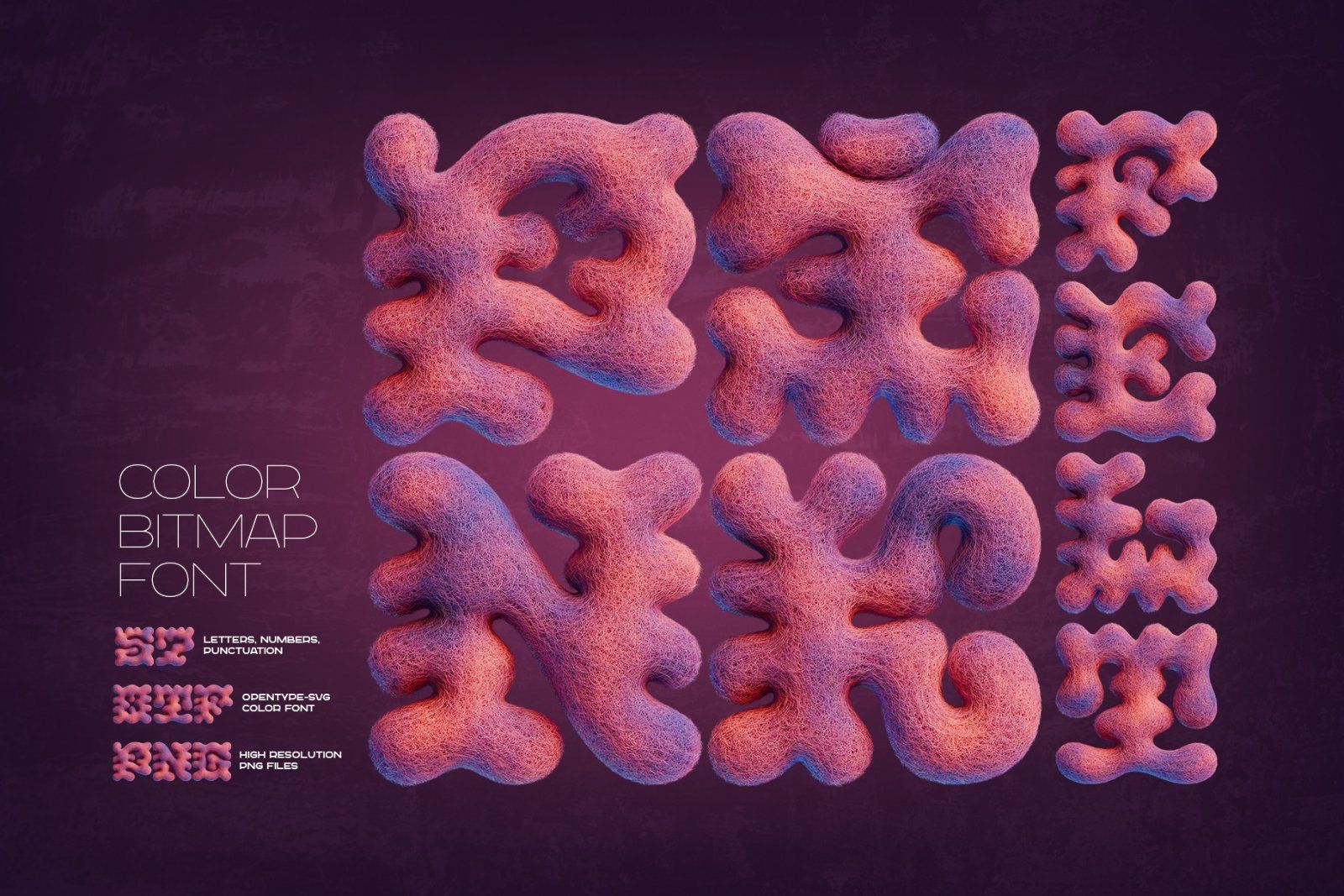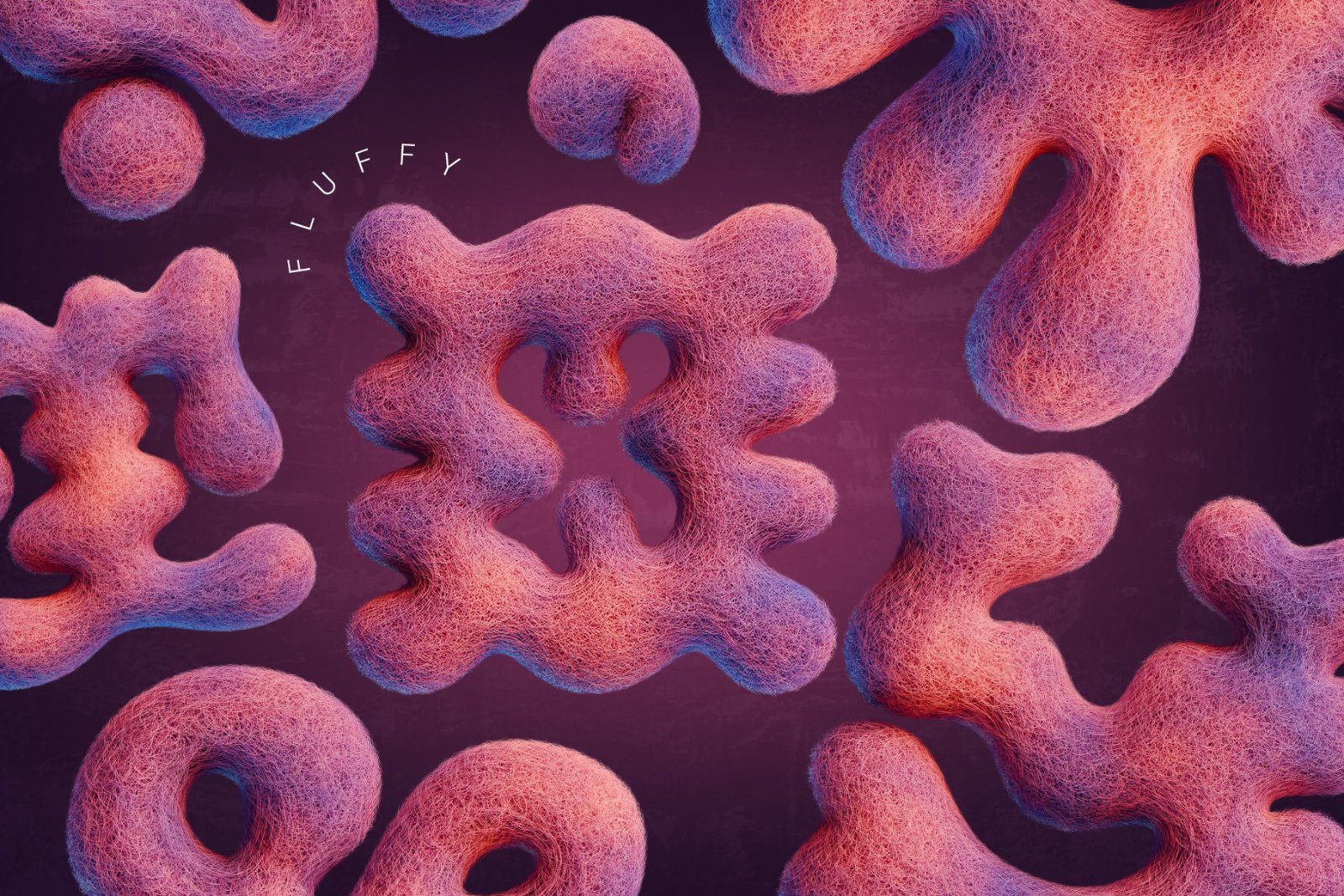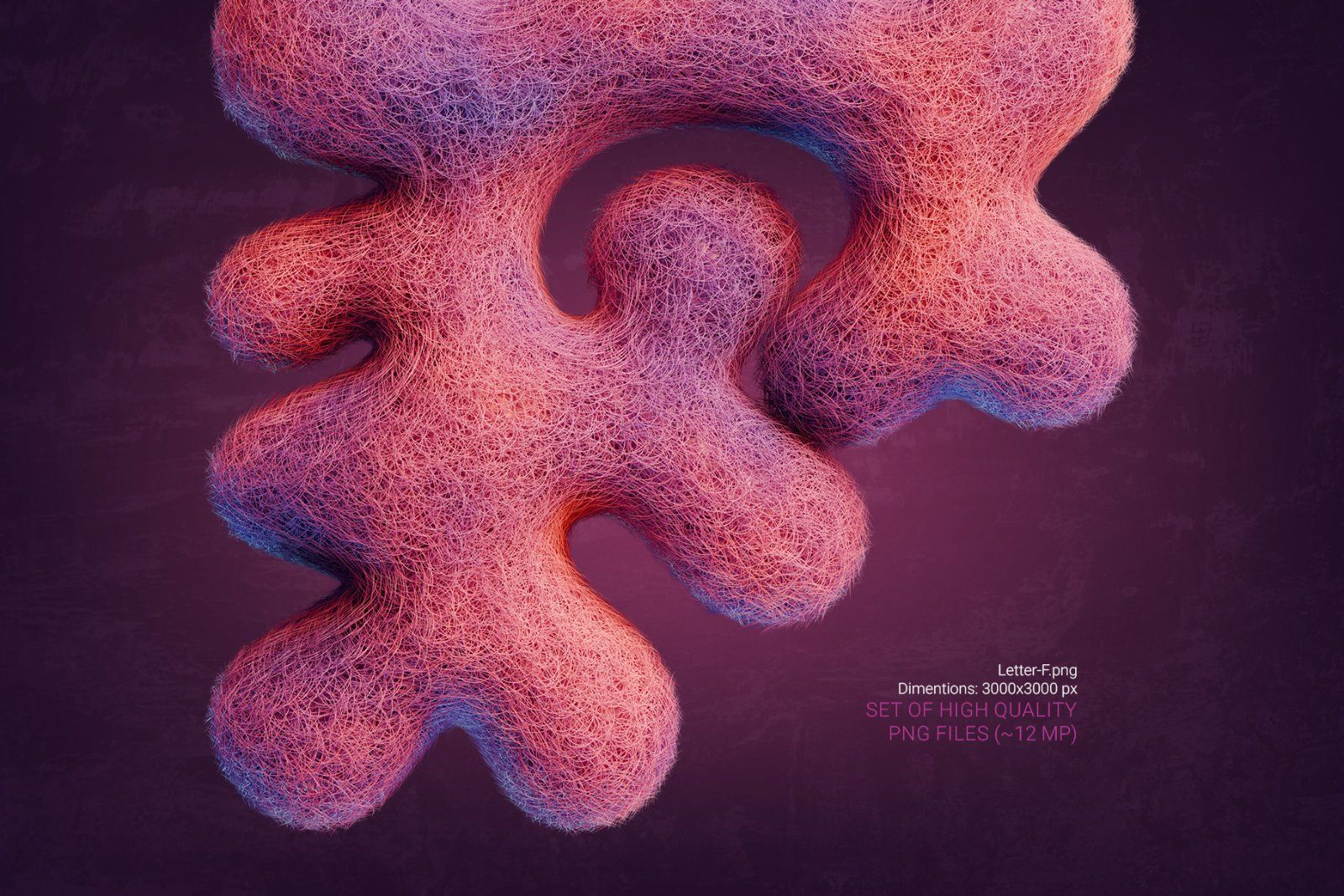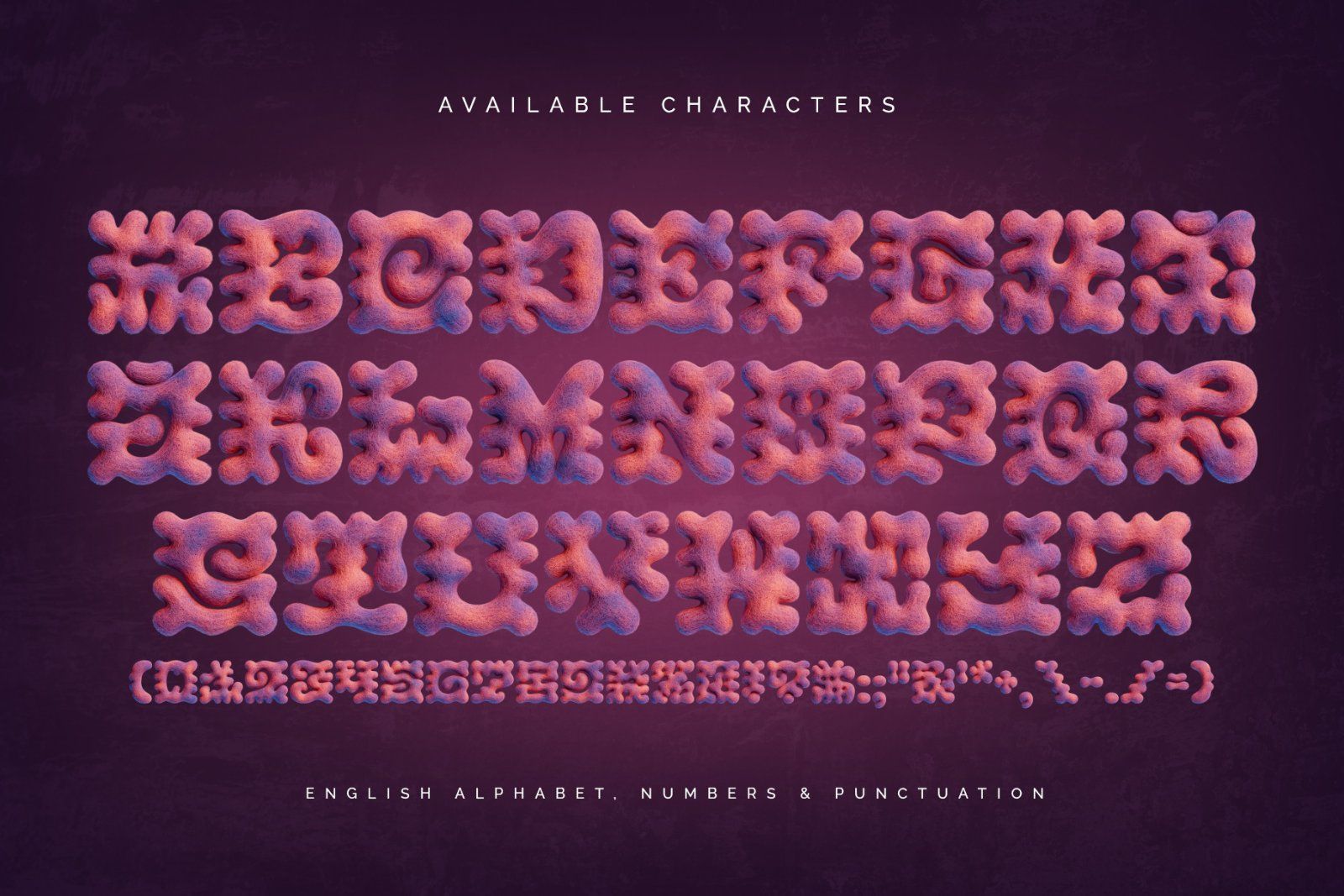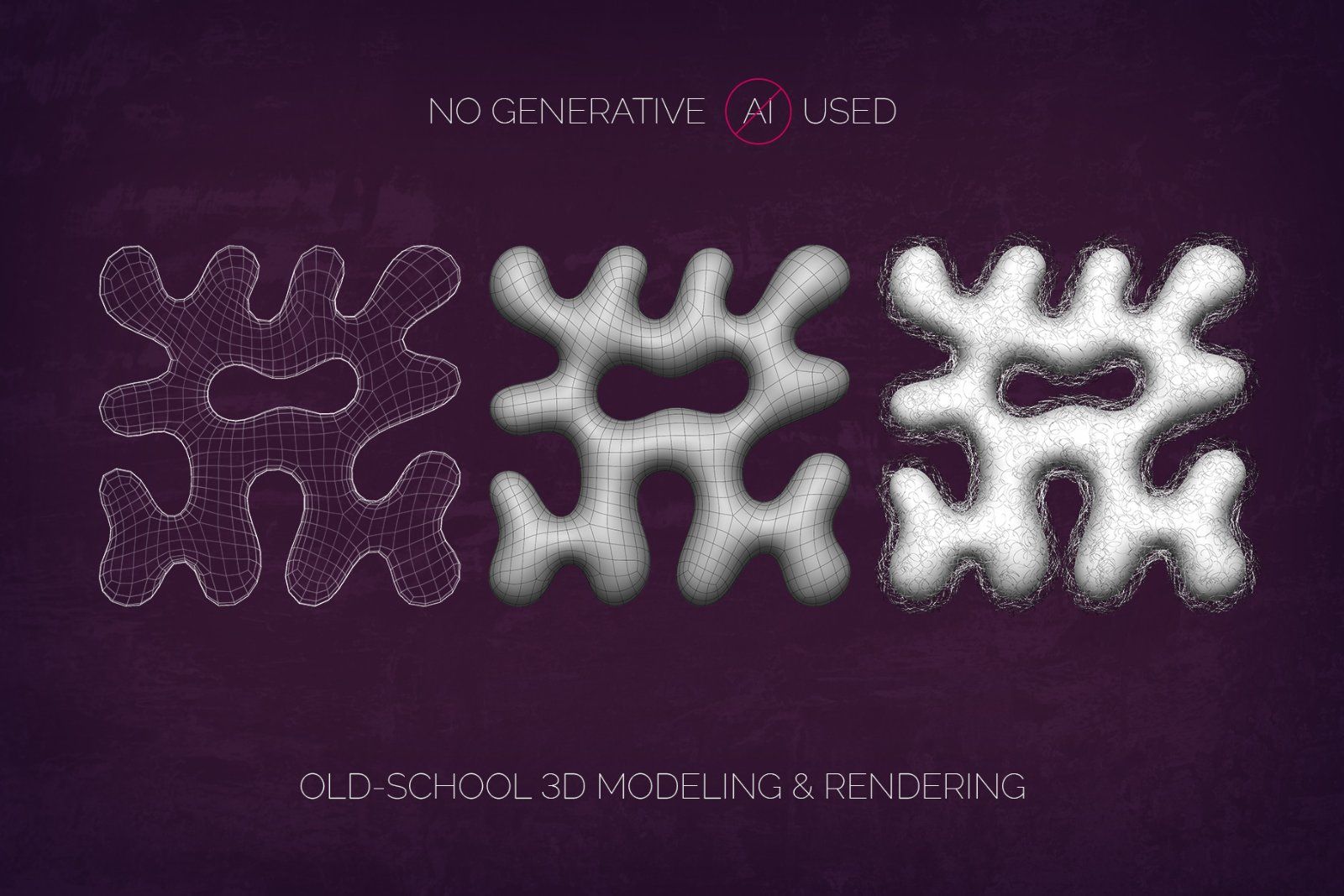
Introducing Pink Felt, a fluffy and creative font set. This collection features 3D-rendered groovy shape letters made of soft felt material. Its playful textures and vibrant style make it the perfect choice for adding a cozy, handcrafted touch to your designs.
Consider that the font supports only the English language and basic punctuation. Be sure to review the included screenshot for a complete list of available characters.